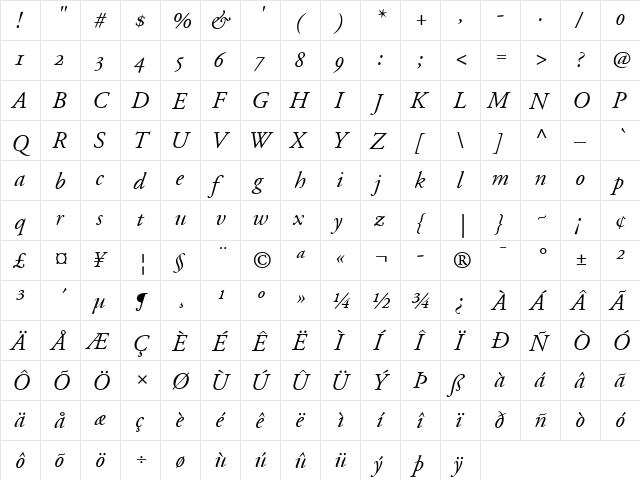
AGaramond RegularSC Italic
Design Context for AGaramond RegularSC Typeface
AGaramond RegularSC takes a measured approach to typography — its balanced proportions and neutral character make it a reliable workhorse for both digital and print work. The dynamic lean of this cut emphasises speed and emphasis in any layout.
Pro Tip: Use AGaramond RegularSC for emphasis, pull quotes, and subheadings where its slanted energy can add rhythm to the layout.